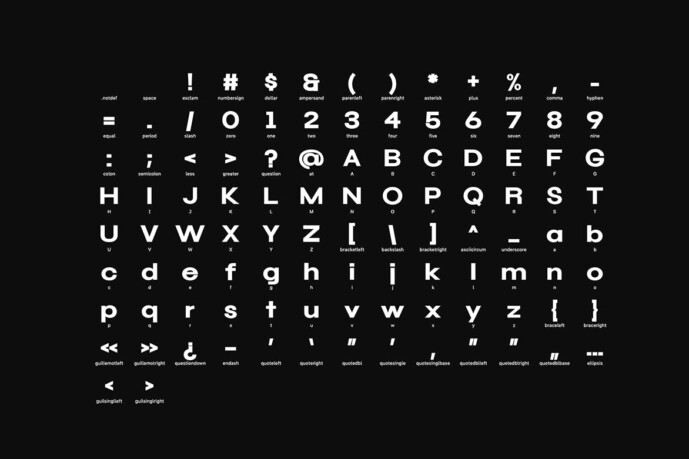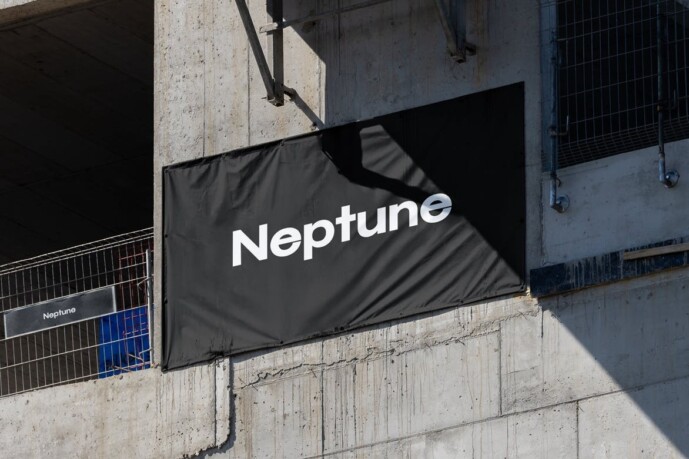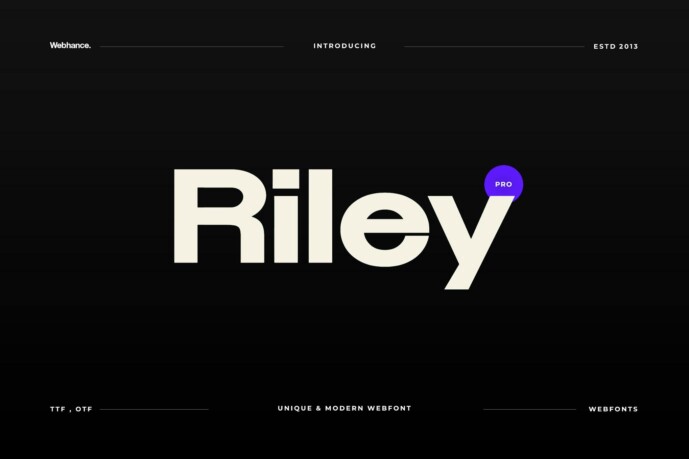
Riley Sans Font
Riley Sans Font is a contemporary sans-serif typeface that offers a sleek and minimalist design suitable for various design projects. With clean lines and balanced proportions, Riley delivers a modern aesthetic while ensuring readability across different mediums. This font can enhance your designs, maintaining a high-quality look and feel that elevates them to world-class standards.